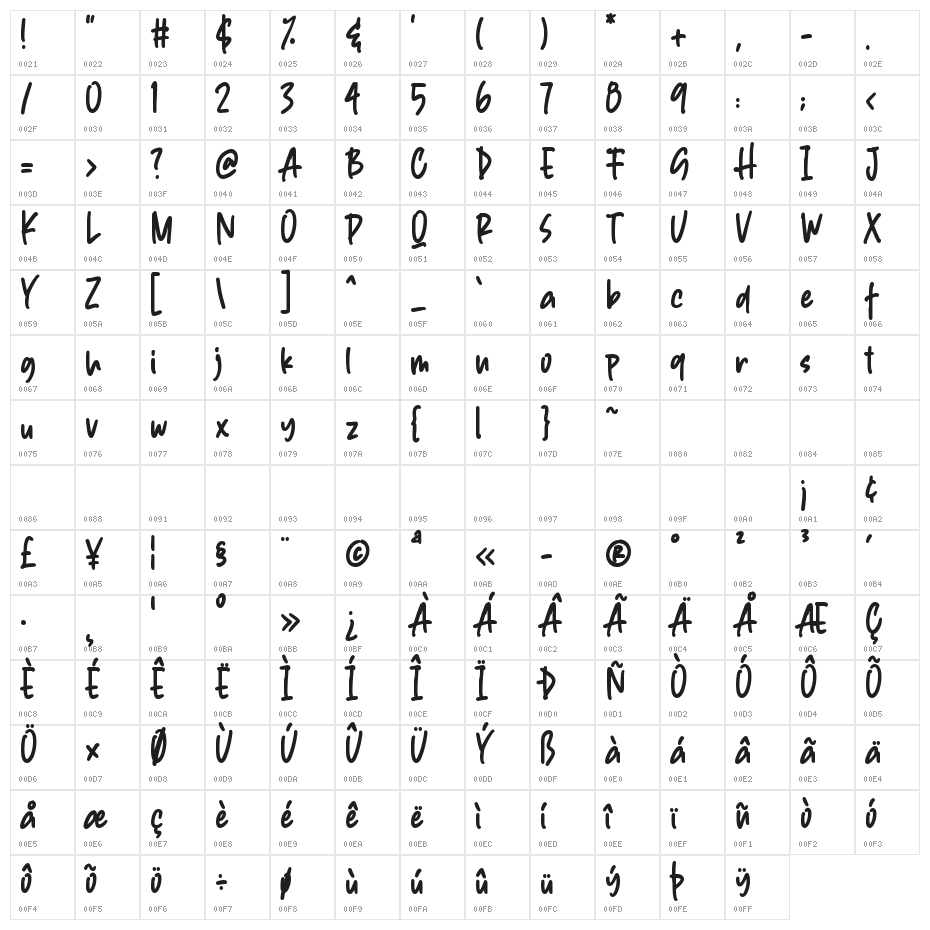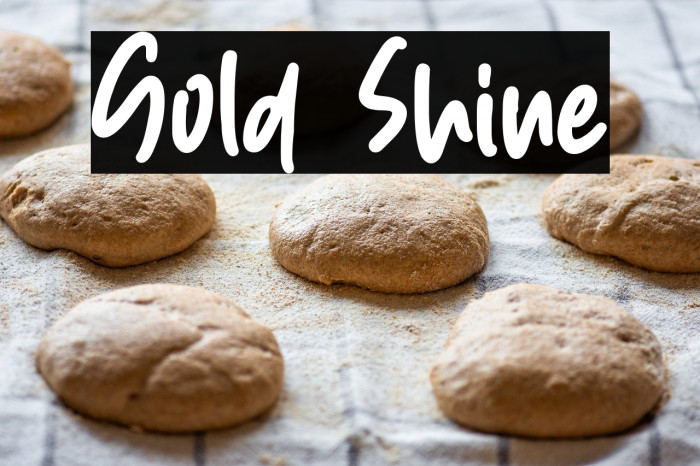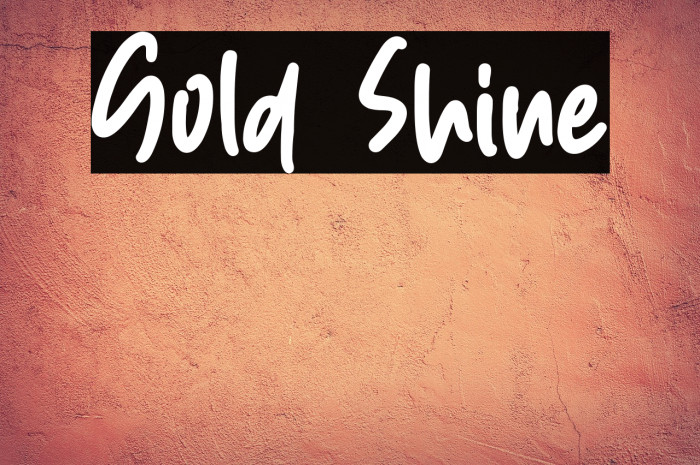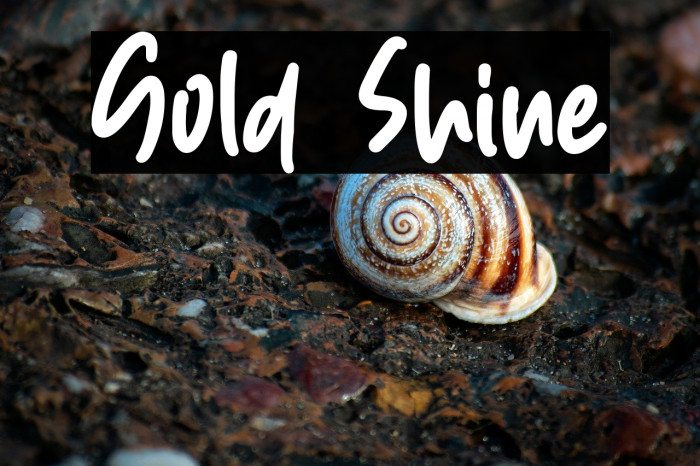
Gold Shine Font
Gold Shine Description
This font features a bold and expressive handwritten style, characterized by its energetic and playful strokes. The letters are slightly slanted, giving a dynamic and informal appearance. The uppercase and lowercase letters maintain a consistent style, with rounded edges and a casual flow. Numbers and special characters are designed to match the lively aesthetic, making the font suitable for creative and informal projects. The overall look is both approachable and stylish, ideal for capturing attention in a fun and engaging way.
| Proposed Projects | Ideal for greeting cards, posters, social media graphics, and branding materials that require a personal touch. |